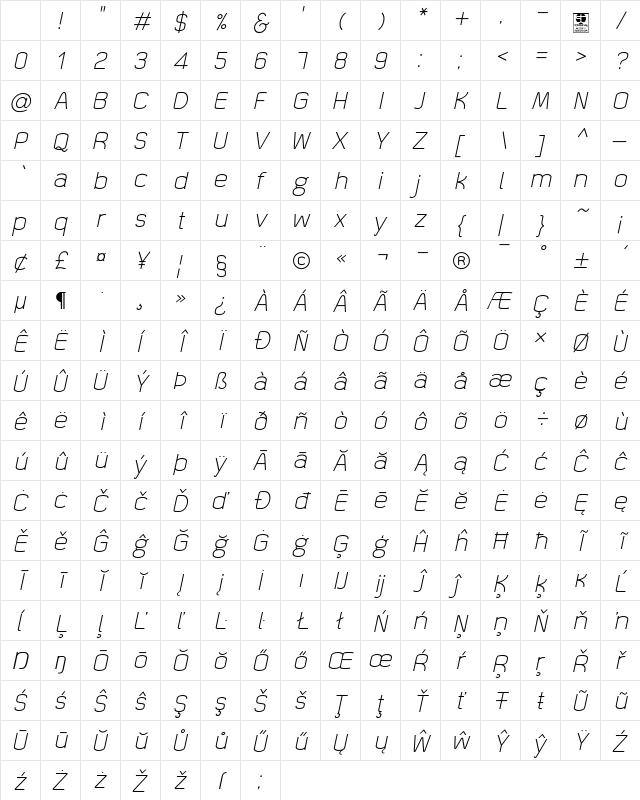
Quizma is a composed and adaptable typeface that performs quietly and consistently across a wide range of design contexts. The slanted form adds forward momentum and visual energy. Its slender proportions lend an understated elegance to any composition.
Pro Tip: Use Quizma for emphasis, pull quotes, and subheadings where its slanted energy can add rhythm to the layout.